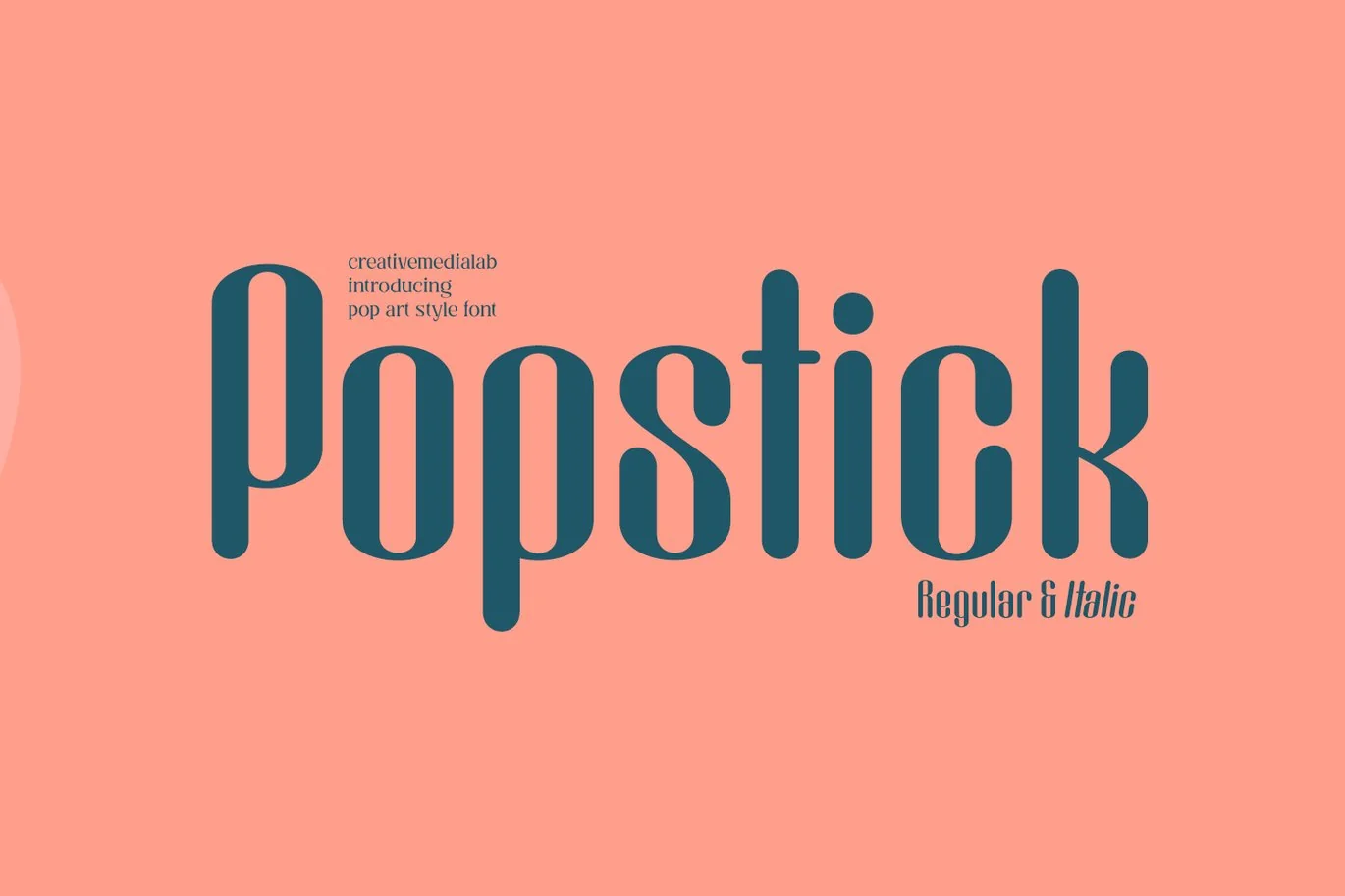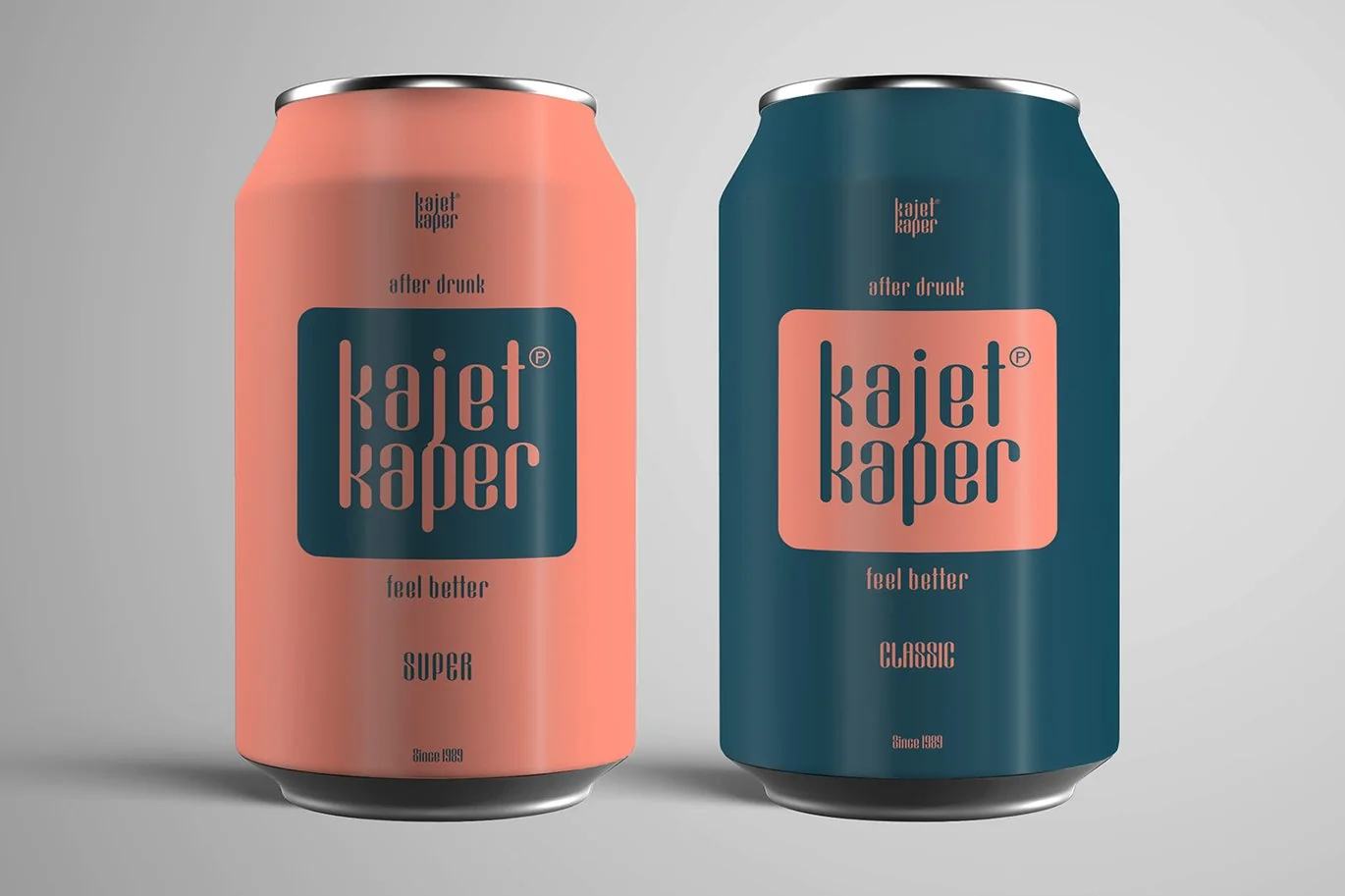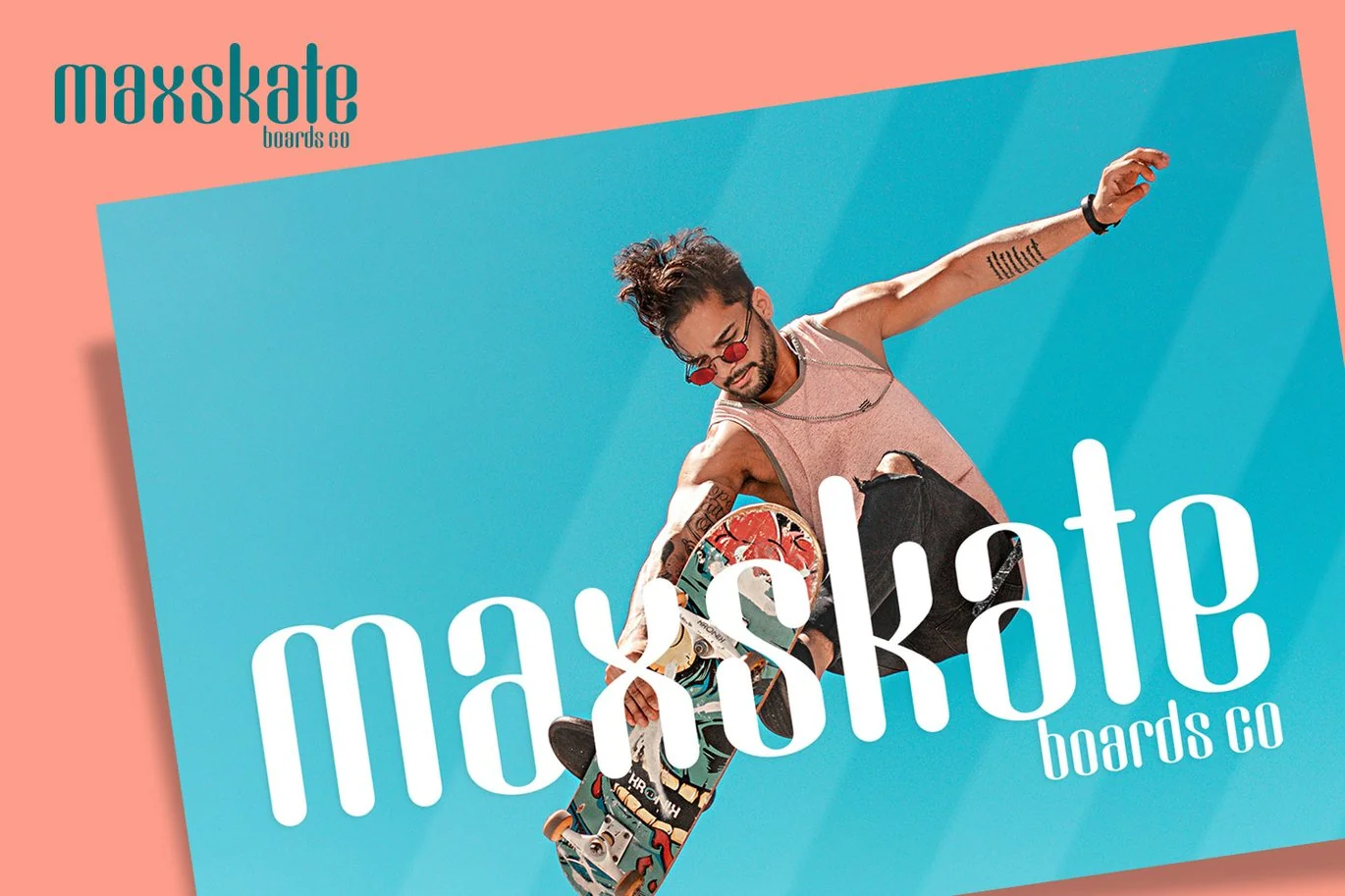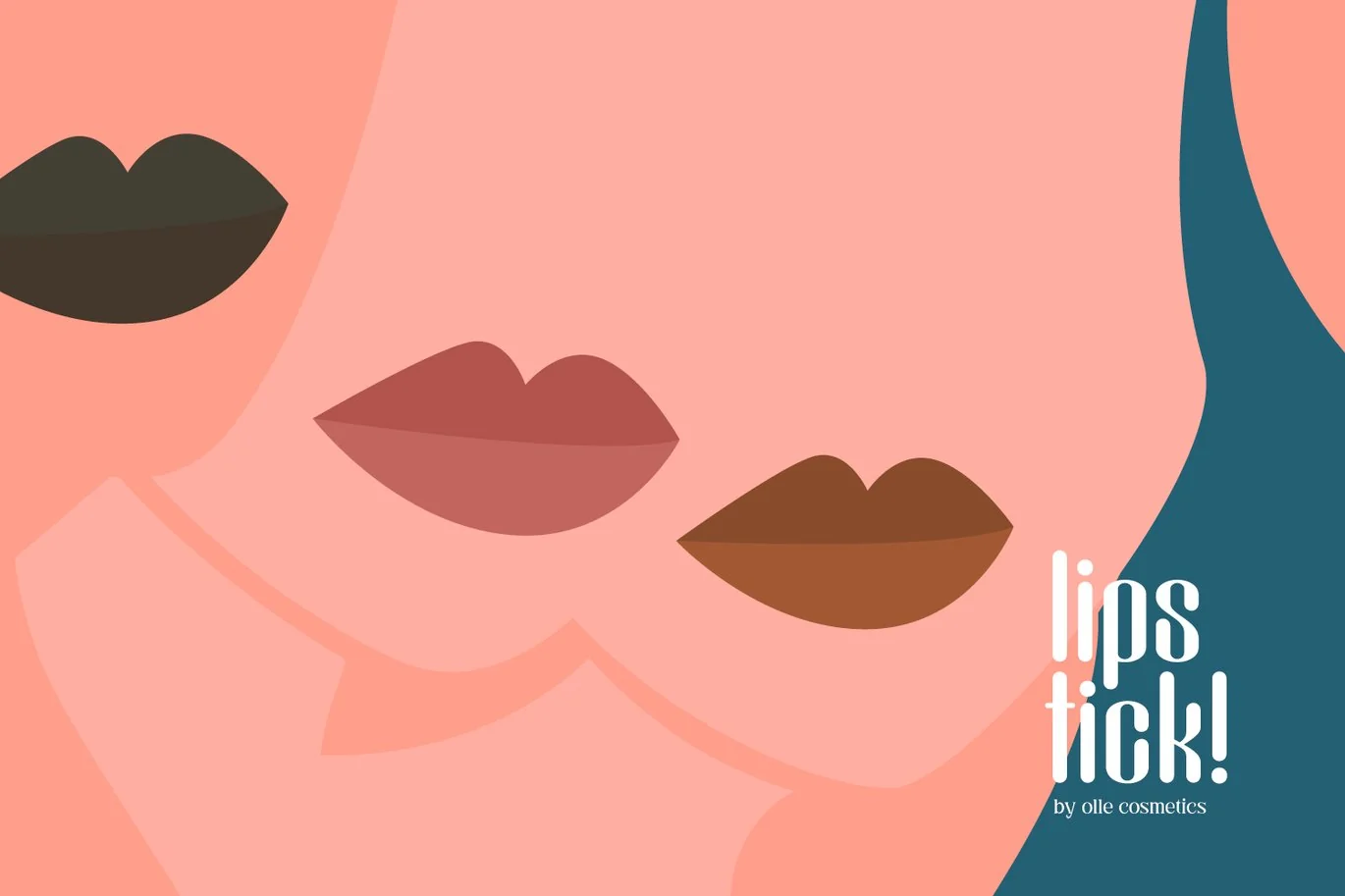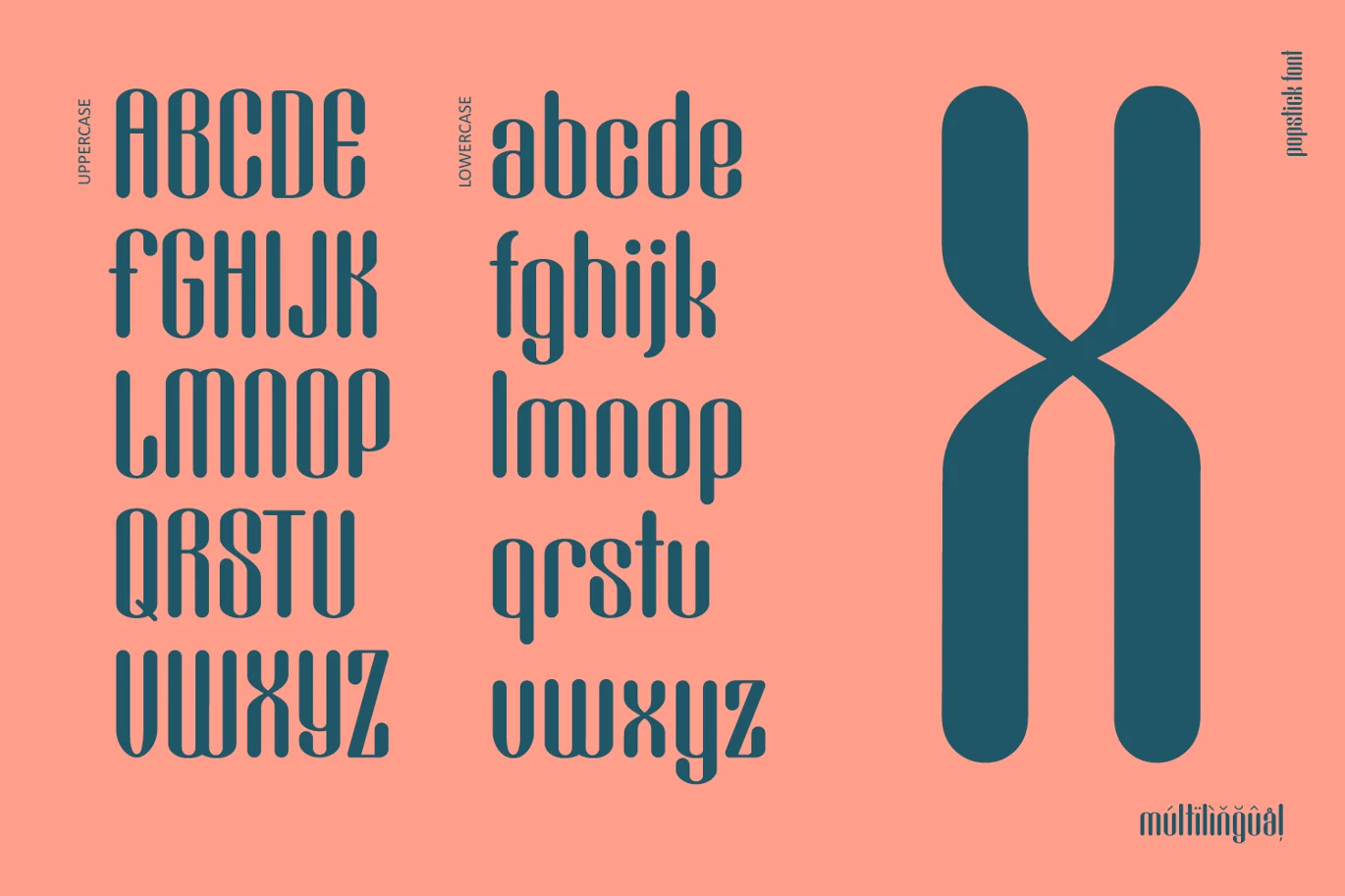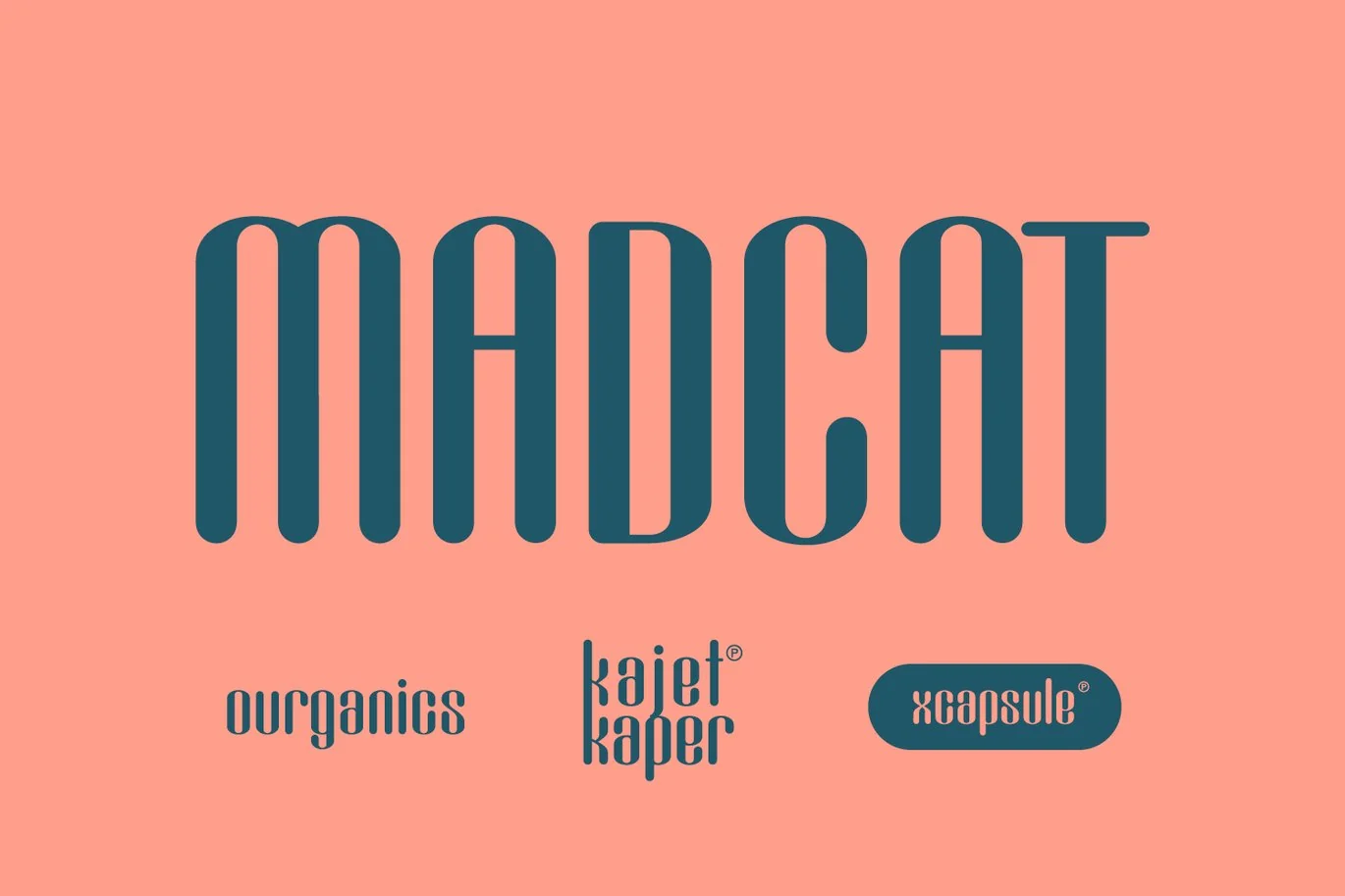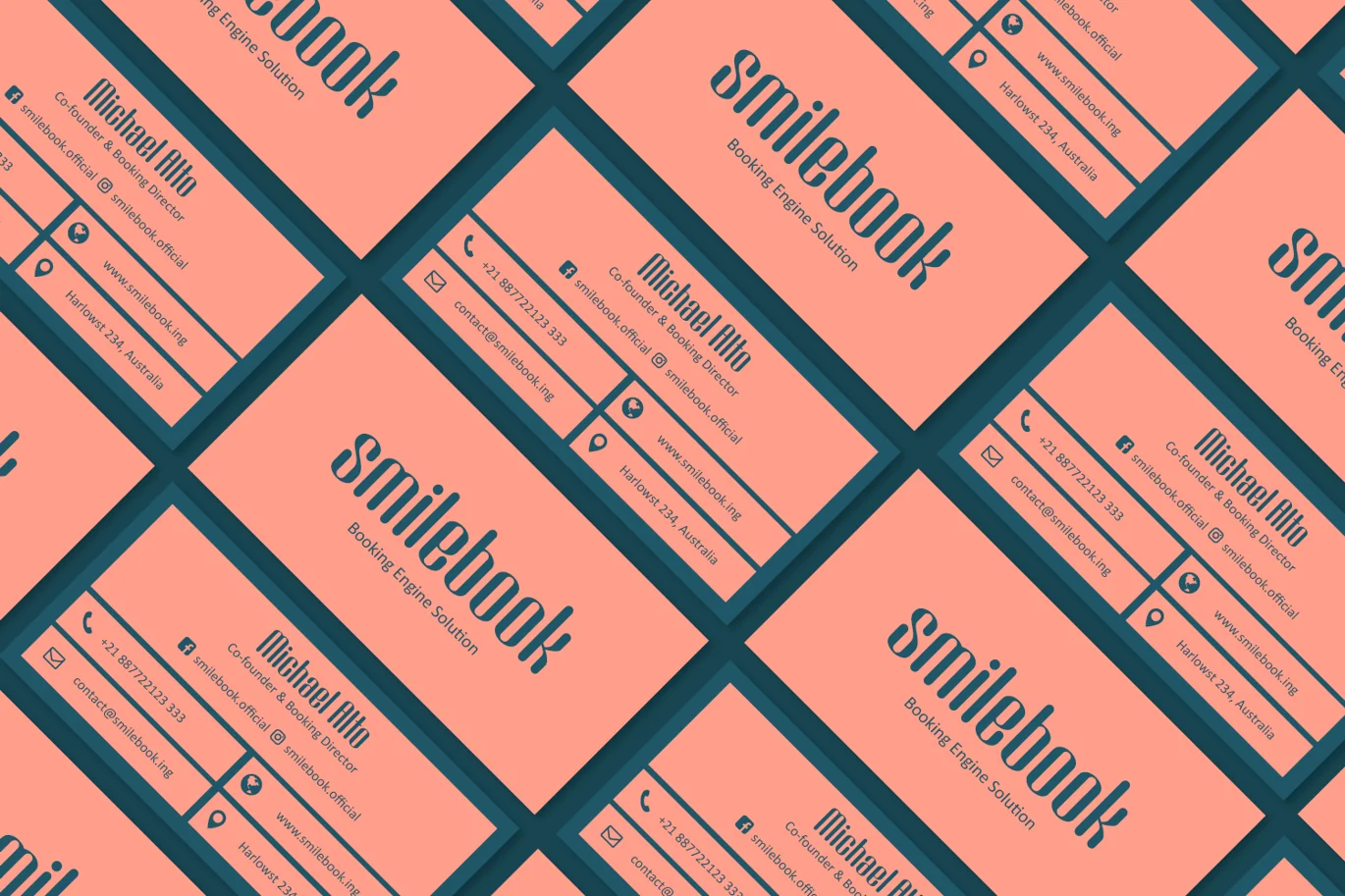
Popstick font
Popstick font! a cool pop art style font for your design.
modern clean and fresh look with nice perfect rounded shape.
This font is best for commercial and editorial uses like advertising, packaging, logo, header, corporate identity and many more.